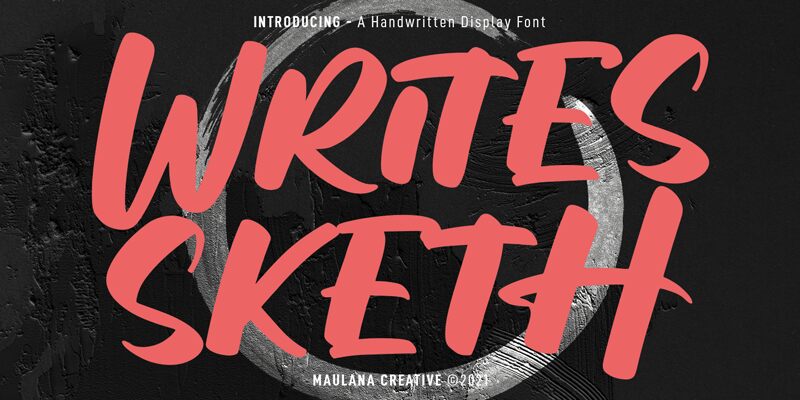
Writes Sketh Free Regular
Writes Sketh, designed by Maulana Creative, is a bold brush font that adds a touch of artistic charm to any project. With its expressive strokes and intricate detailing, this typeface is perfect for creating eye-catching logos, magazine covers, and posters that demand attention. The dynamic nature of Writes Sketh lends itself well to designs related to fashion, beauty, and lifestyle industries. Whether you're working on branding campaigns or social media graphics, this font will infuse your projects with a unique and captivating flair that is sure to leave a lasting impression.